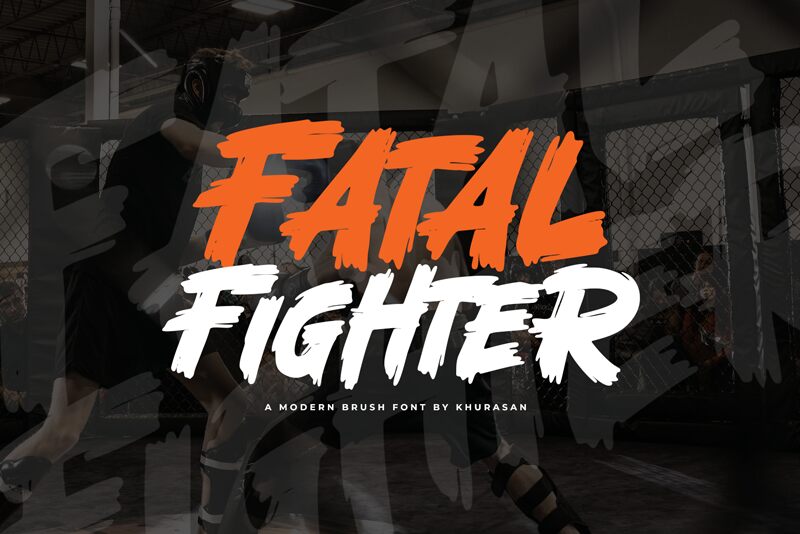
Fatal Fighter
Fatal Fighter, the extraordinary creation by Khurasan, is a captivating brush font that demands attention. With its extra-bold weight, it exudes strength and power, making it ideal for projects that require a bold statement.
Use Fatal Fighter to add a fierce touch to your branding materials, poster designs or album covers. Its dynamic strokes and edgy vibe will effortlessly convey the rebellious spirit in action movie titles or video game logos.
Unleash the untamed energy of Fatal Fighter and let your designs soar to new heights!